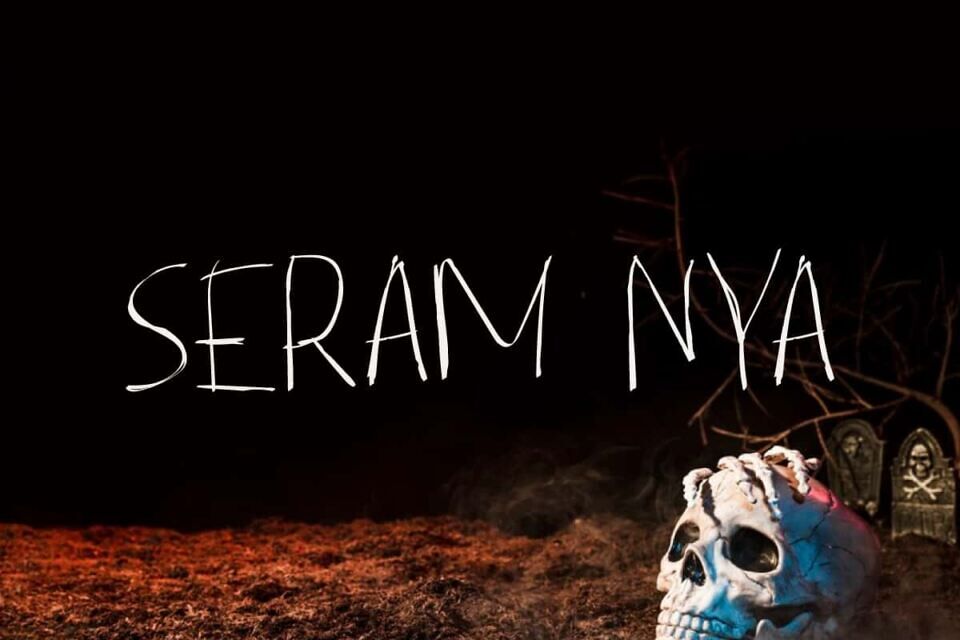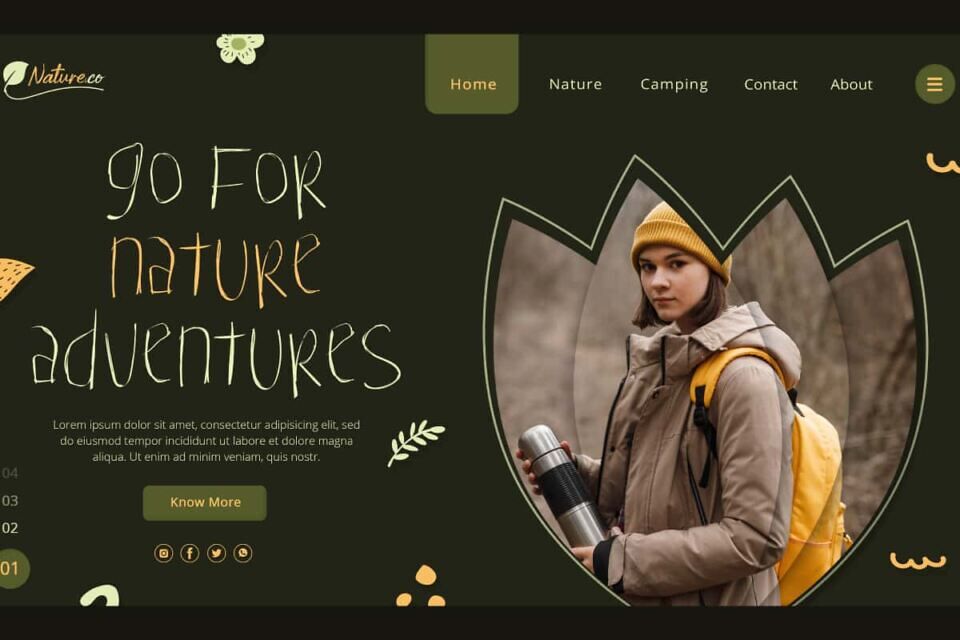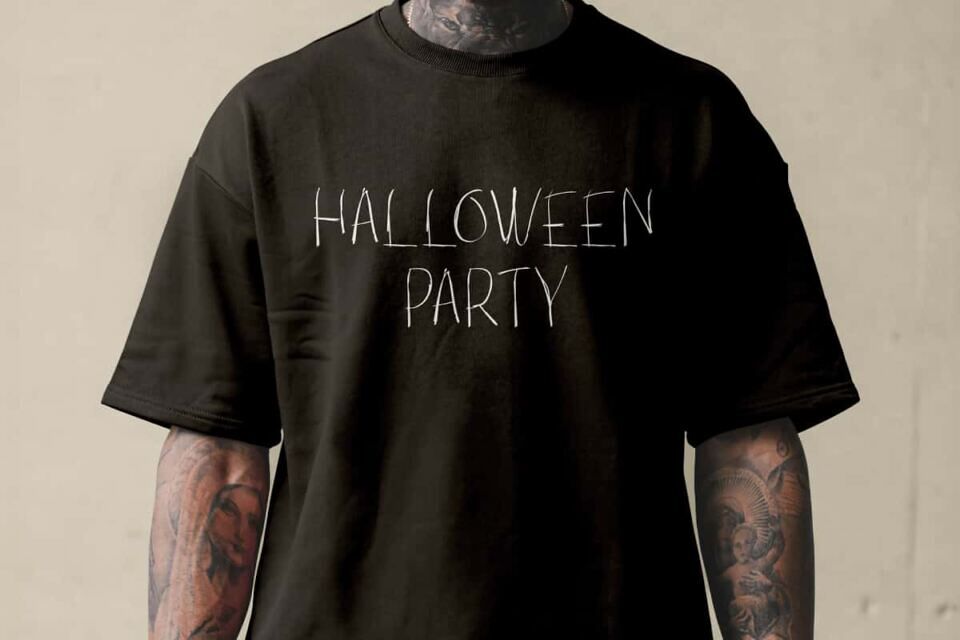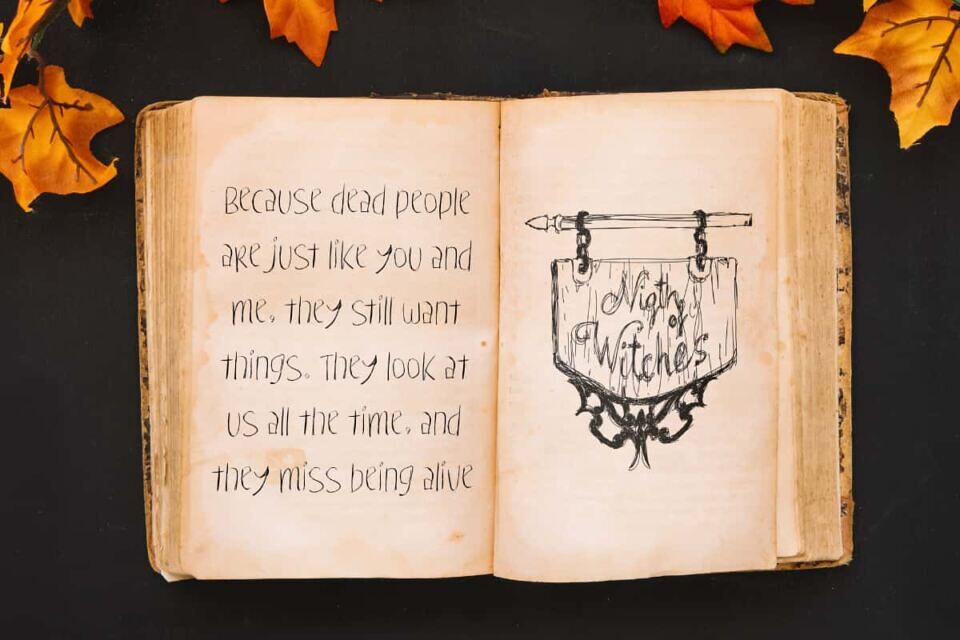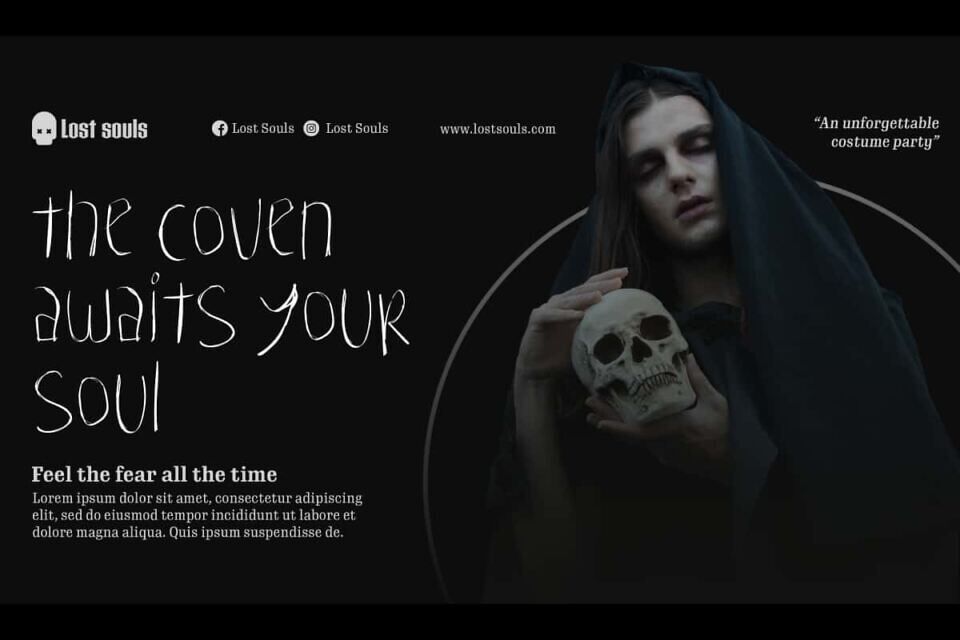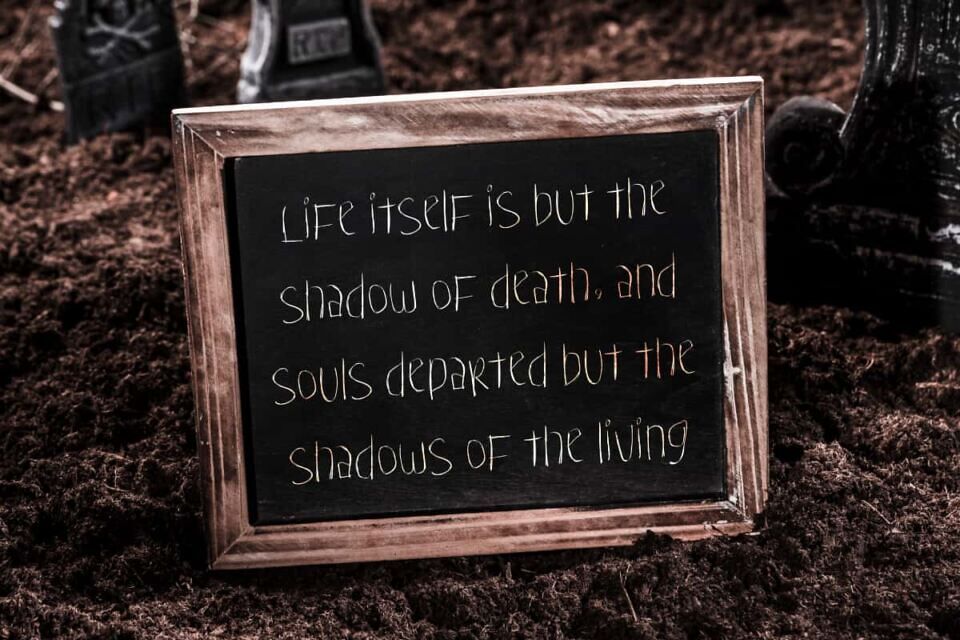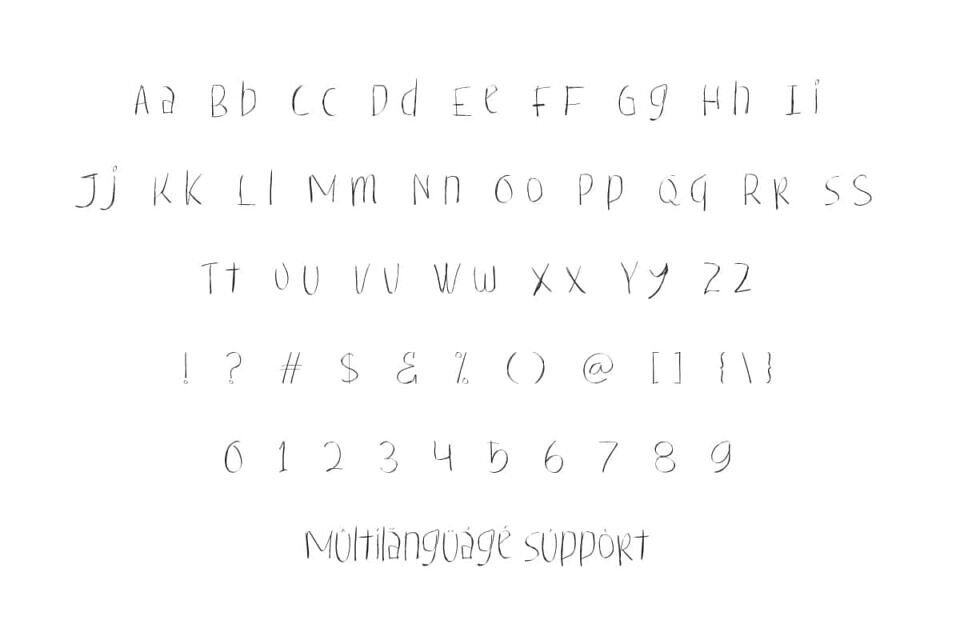
Seram Nya Font is a light sketch creative display font with horror creepy theme, written hastily and irregularly by hand using a pencil. It allows you to experiment in unlimited imagination!
Perfect for accessories and merchandise, art exhibition, artist, authors, clothing brand, event organizer, fashion, film, graphic design, Halloween, handicraft, illustration, movie, publisher, recreation and adventure, writer, apps, banners, brochure, card design, covers, custom bag, headers, logos, mockup, poster, sign board, stationery, t-shirt, template, title, website, etc.
Seram Nya Font includes a complete set of Basic Uppercase and Lowercase Characters, Numbers, Punctuation Marks and Symbols. It’s scribble-style, capturing the raw, authentic essence of handwriting, creating a visual experience that’s impossible to ignore.